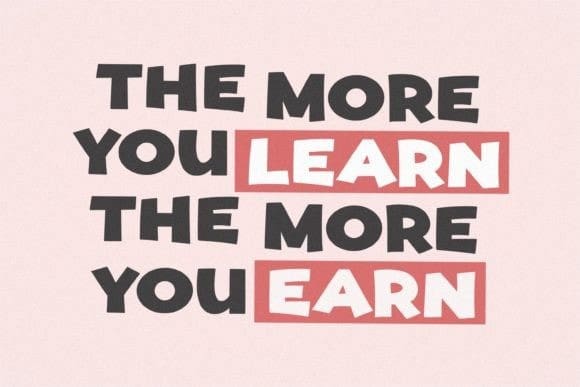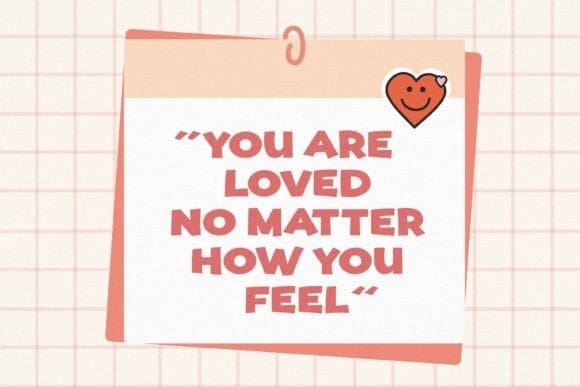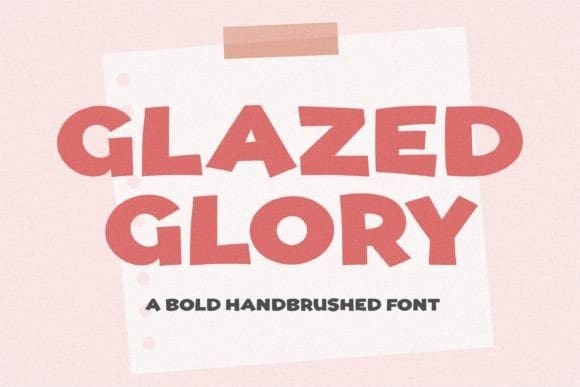
Glazed Glory Font
Glazed Glory Font, this display font features bold, handbrushed strokes, giving it a unique and organic feel. Each letter is meticulously designed to convey a sense of craftsmanship and artistic flair.
With its expressive strokes and bold character, Glazed Glory is perfect for adding a charming and distinctive touch to a wide range of design projects, from posters and logos to invitations and social media graphics.